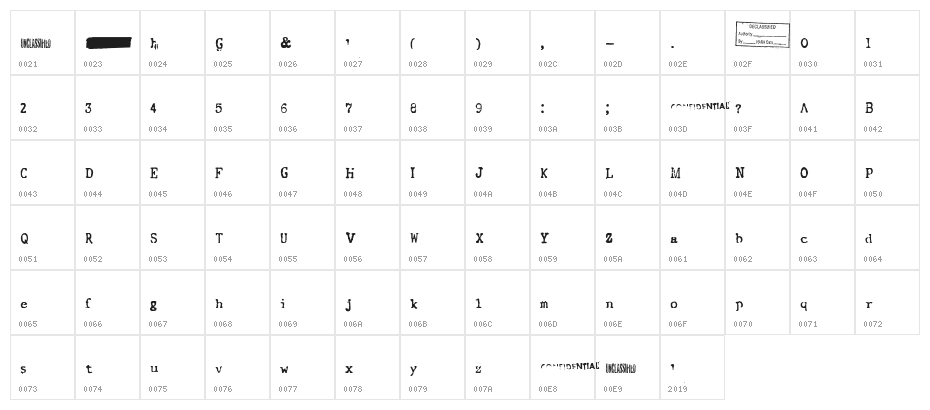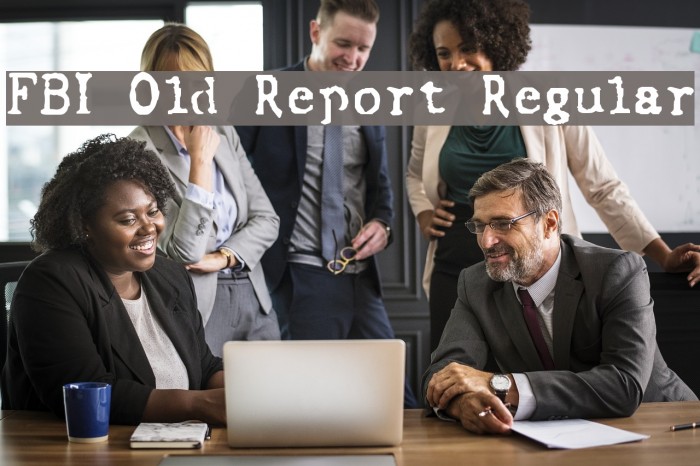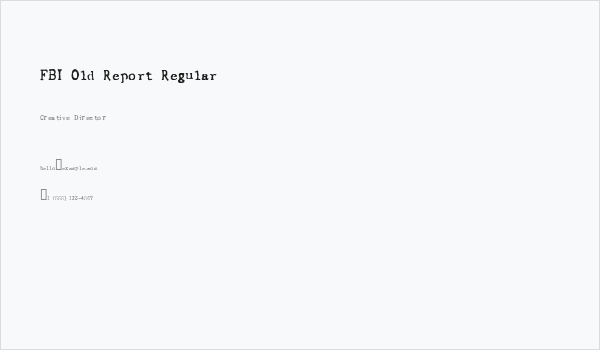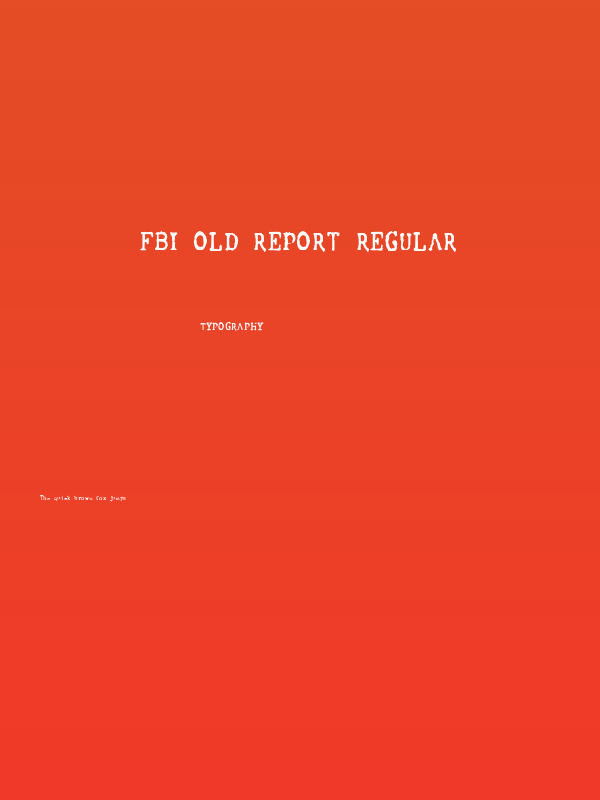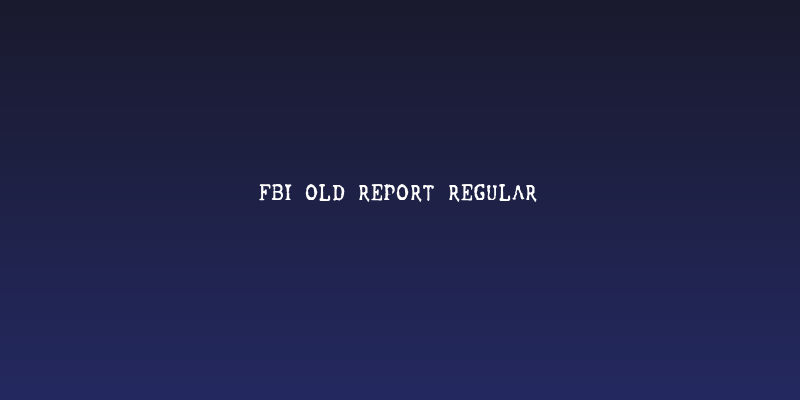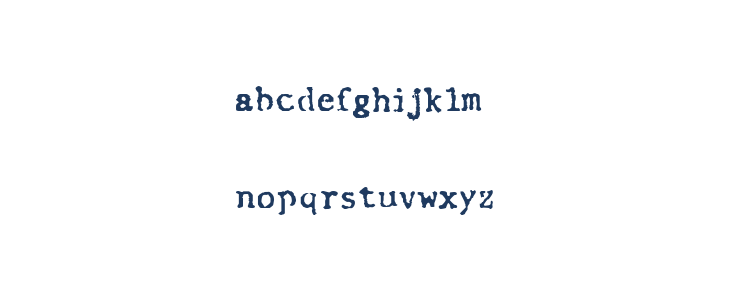
FBI Old Report Regular Font
FBI Old Report Regular Description
This typeface exudes a vintage, typewriter-inspired aesthetic, reminiscent of old government documents and reports. The characters are slightly irregular, giving them a distressed, authentic feel. The uppercase and lowercase letters maintain a consistent style, with a rough texture that adds to the aged appearance. The numerals and special characters follow the same design, ensuring a cohesive look across all glyphs. This font captures the essence of historical documentation, making it ideal for projects that require a touch of nostalgia or authenticity.
| Proposed Projects | Ideal for historical documents, retro-themed designs, posters, and branding that requires an authentic vintage touch. |